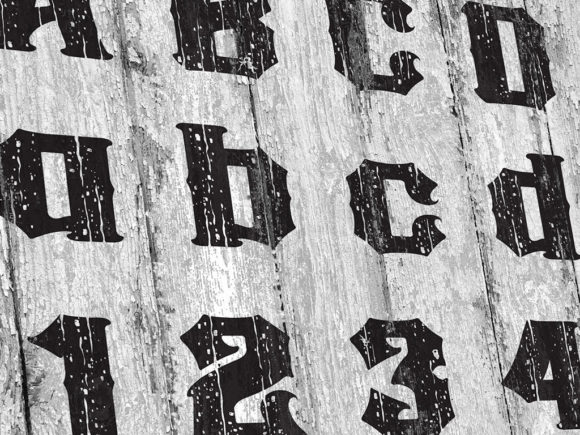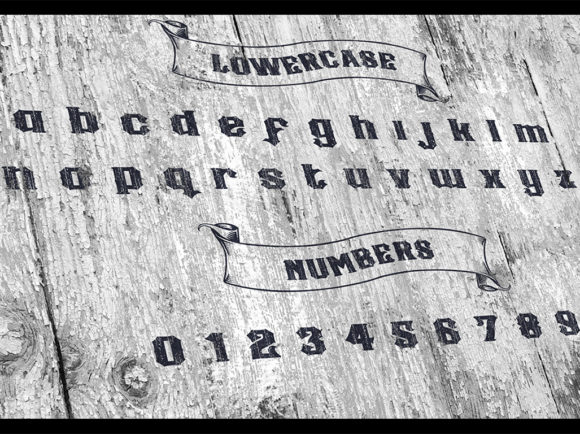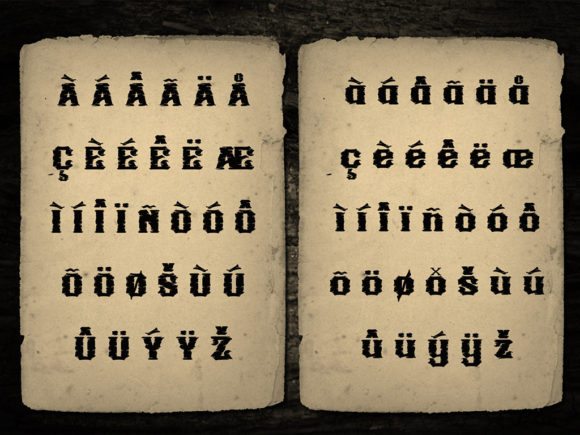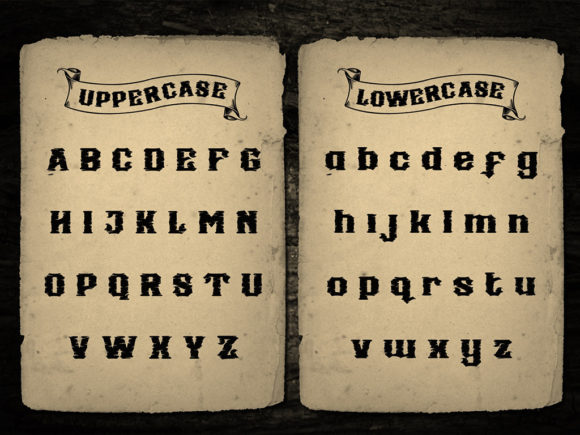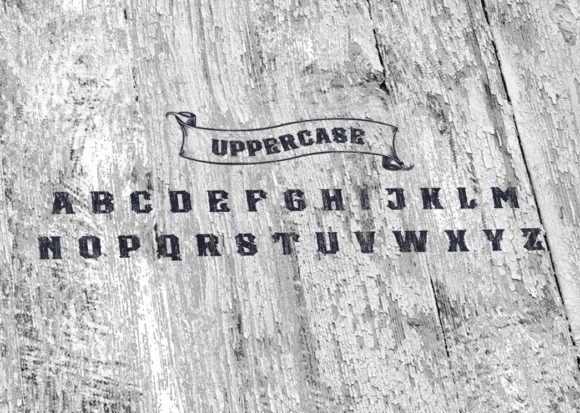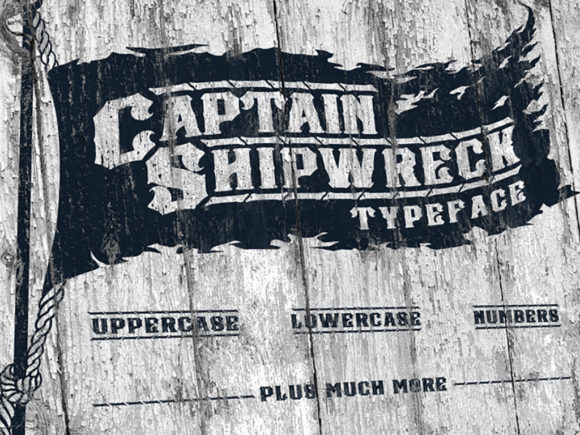
Introducing Captain Shipwreck Font: Elevate Your Designs with a Bold, Vintage Flair
Are you tired of using the same old fonts in your designs? Do you want to add a touch of nostalgia and personality to your labels, posters, and branding materials? Look no further than Captain Shipwreck Font, a bold, vintage-styled, and detailed display font that’s sure to make your designs stand out.
Captain Shipwreck Font is a versatile and eye-catching font that’s perfect for designers and crafters who want to add a unique touch to their work. Whether you’re creating labels, posters, branding materials, or any other type of design, this font is sure to make a statement. Its bold and detailed style is reminiscent of vintage signs and posters, making it perfect for projects that require a touch of nostalgia and charm.
Key Features of Captain Shipwreck Font
So, what makes Captain Shipwreck Font so special? Here are just a few of its key features:
- Bold and eye-catching: Captain Shipwreck Font is a bold and attention-grabbing font that’s perfect for making a statement.
- Vintage style: With its distressed and worn look, Captain Shipwreck Font has a distinctly vintage feel that’s perfect for adding a touch of nostalgia to your designs.
- Detailed: This font features intricate details and textures that give it a unique and authentic look.
- Versatile: Captain Shipwreck Font can be used for a wide range of design projects, from labels and posters to branding materials and more.
How to Use Captain Shipwreck Font in Your Designs
Using Captain Shipwreck Font in your designs is easy. Here are a few tips to get you started:
- Pair it with a simple background: To really make Captain Shipwreck Font stand out, try pairing it with a simple background that won’t compete with the font.
- Experiment with colors: Don’t be afraid to experiment with different colors and textures to find the perfect combination for your design.
- Use it sparingly: While Captain Shipwreck Font is bold and eye-catching, it can be overwhelming if used too much. Try using it sparingly to add emphasis to key words or phrases.
Captain Shipwreck Font is perfect for a wide range of design projects, including:
- Labels: Add a touch of personality to your labels with Captain Shipwreck Font.
- Posters: Create eye-catching posters that grab attention with this bold and vintage-styled font.
- Branding materials: Use Captain Shipwreck Font to add a unique touch to your branding materials, such as business cards and brochures.
- Crafting projects: If you’re a crafter, Captain Shipwreck Font is a great addition to your design toolkit. Use it to add a personal touch to your crafting projects, such as handmade cards and gift tags.
| Font Name | Captain Shipwreck Font |
| Author | Alphabet Agency |
In conclusion, Captain Shipwreck Font is a bold, vintage-styled, and detailed display font that’s perfect for designers and crafters who want to add a unique touch to their work. With its key features, versatility, and ease of use, this font is sure to become a staple in your design toolkit. So why wait? Add Captain Shipwreck Font to your collection today and start creating designs that stand out!